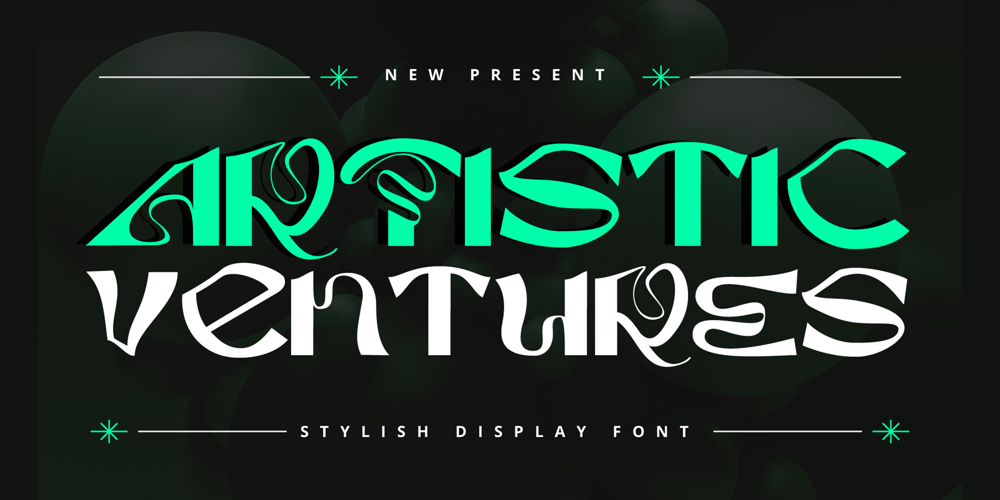
Artistic Venture Font Family was designed by panji nugroho and published by Storictype. Artistic Venture contains 1 styles and family package options. Artistic Venture Typeface, Inspirated those bold wide letters you see on. computer screen, movie futureistic with combine classic , Well, some of them have these strong or hooks on the ends of the letters. But, there’s also this new style of font that’s super cool and futuristic. It’s called a Artistic Venture Typeface.There Include : All Caps Opentype Feature Alternate Character Ligature Multilanguage Thank You